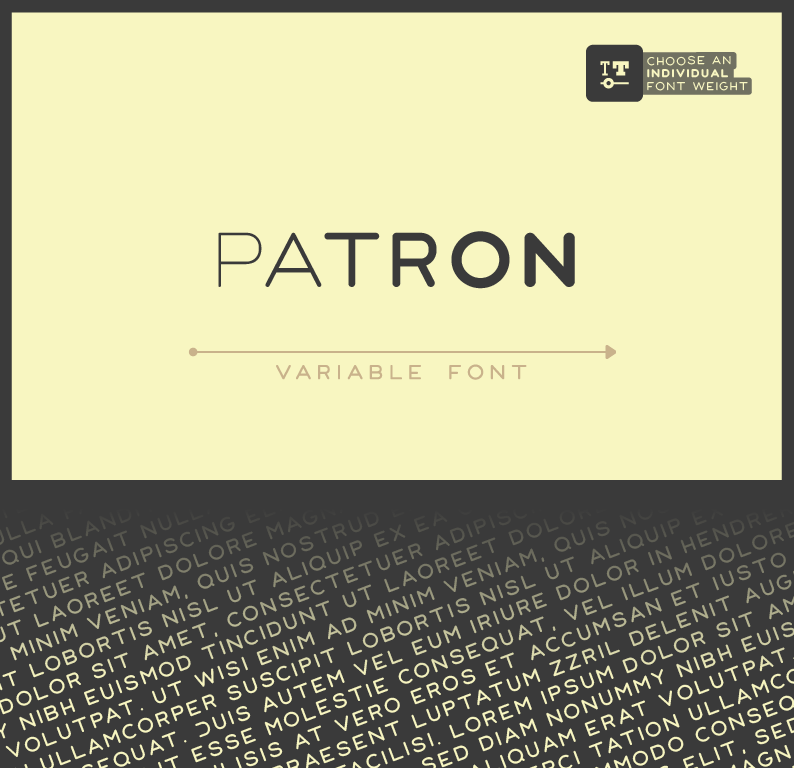
Font name: | Patron |
Author: | Shaped Fonts |
*** The full typeface is a variable font, so you can adjust the font weight individually! *** Visit www.shapedfonts.com/patron to buy the full version (included with a license)! Our first variable font will match your next project perfectly - guaranteed! Patron is a minimal sans serif font with an adjustable font weight. It has round edges to emphasize the modern look of the glyphs and is perfect for any logo, branding, invitation cards, headlines or marketing material. Like it industrial? Try out the stencil letters by typing in caps. NOTE: This font is free for personal use only. If you want to use it commercially, please buy a license on our website: www.shapedfonts.com/patron |